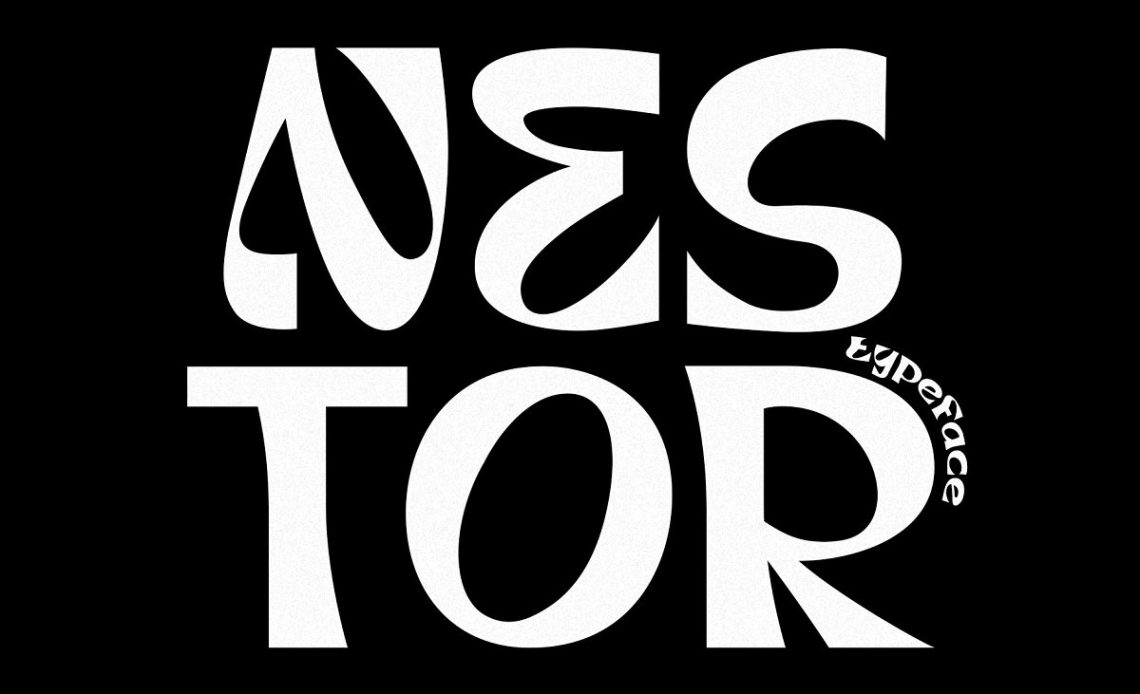
Introducing Nestor - the sans serif, retro-inspired display typeface that will take your designs to the next level! Created by the talented Igor Ovsyannykov, Nestor is the perfect font for those seeking to elevate their magazine design, branding, social media, advertising, and much more.
What sets Nestor apart is its unique, lovable, and quirky personality that's bound to catch your audience's attention. With groovy curves and a bold personality, Nestor is sure to make your headlines, quotes, prints, and posters stand out from the crowd.
Nestor is the best font for magazine design as it has the ability to evoke emotion and add a touch of personality to your designs. It's versatile and can be used in a variety of ways, making it a must-have for any designer's toolkit.